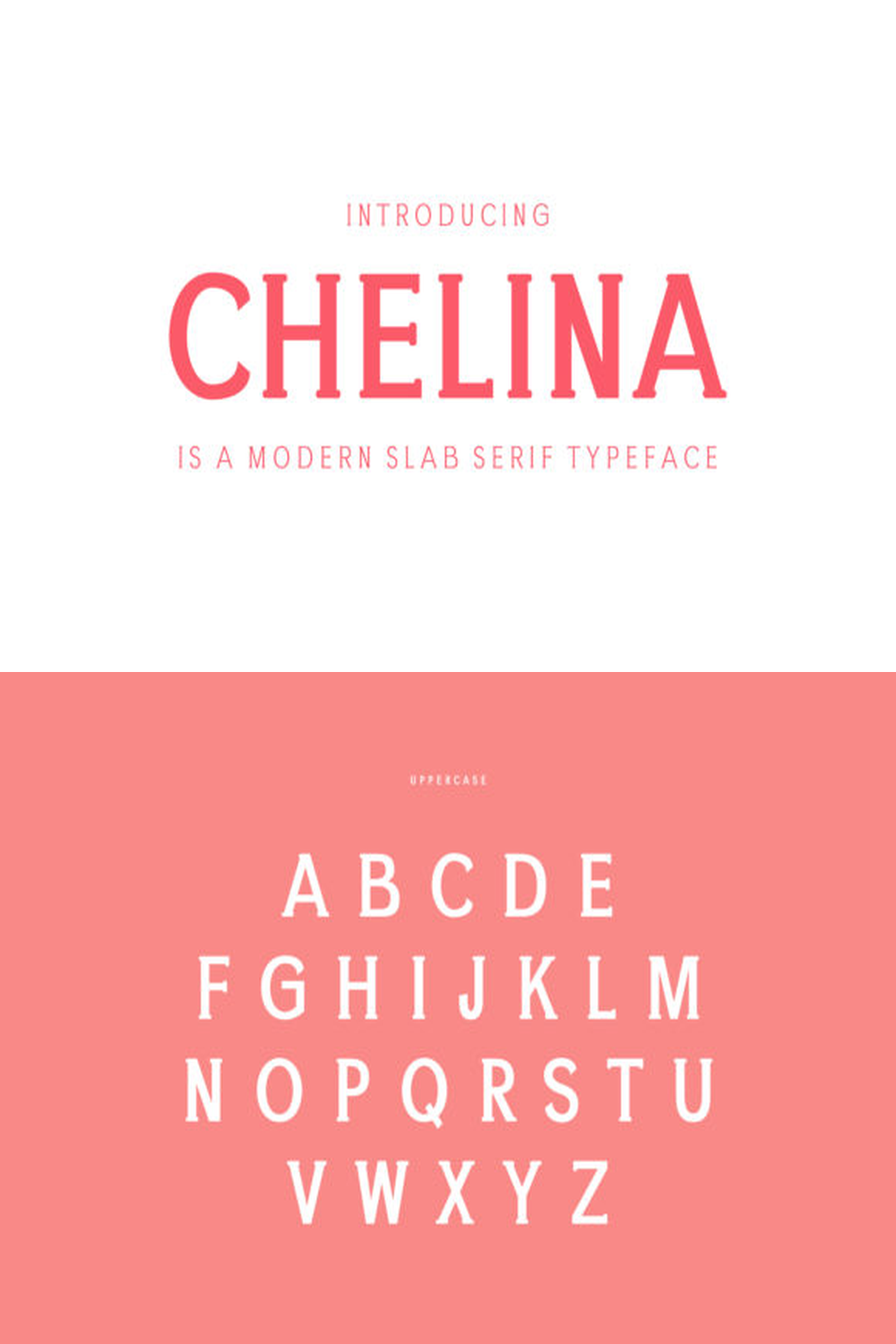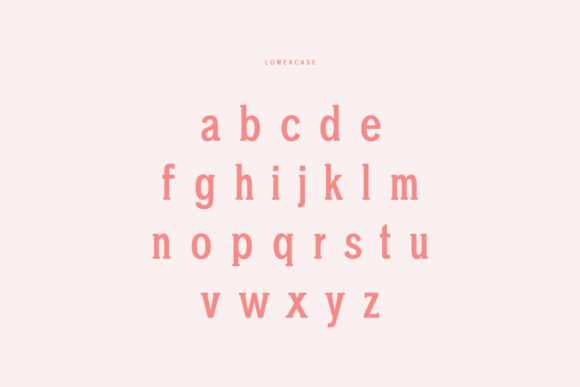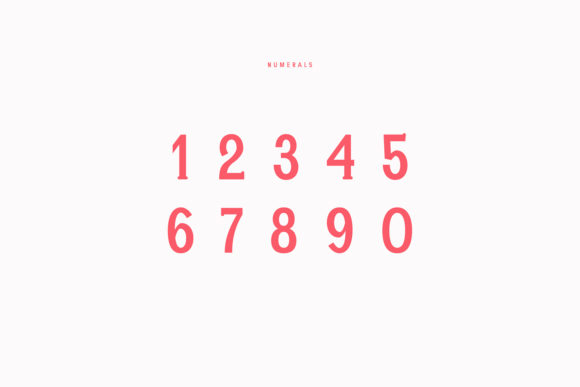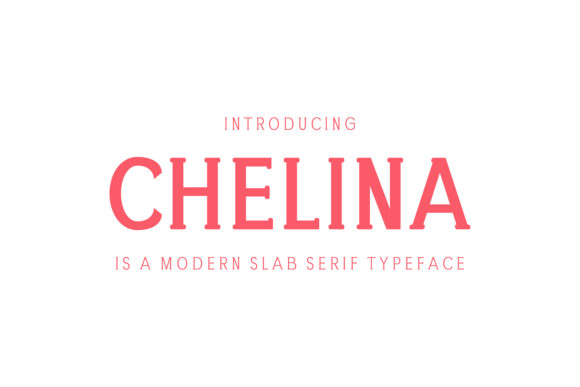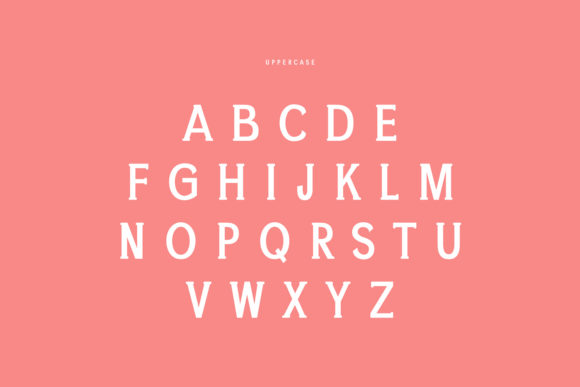
Chelina Font: A Chunky Slab Serif for Modern Logo Design
About the Chelina Font
The wait is over! The incredible Chelina Font is now available for your design toolkit. Chelina is a chunky, cool and friendly slab serif font with a contemporary look.